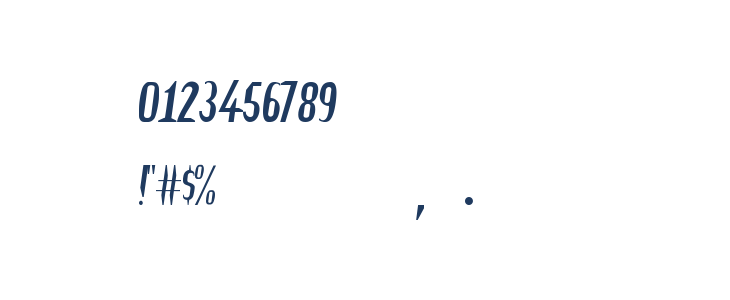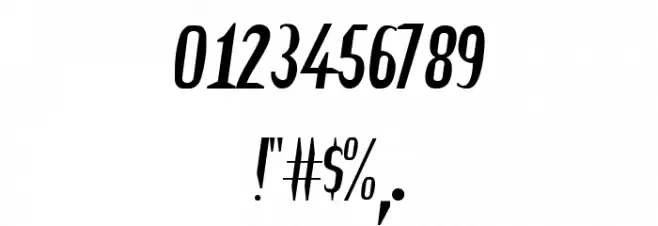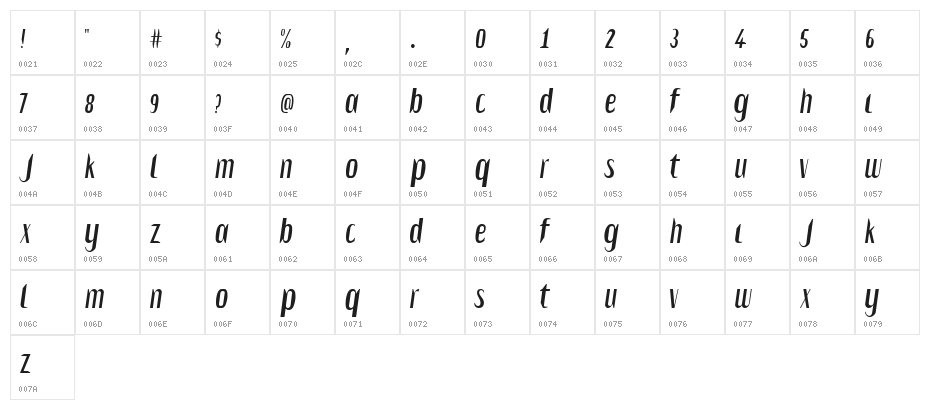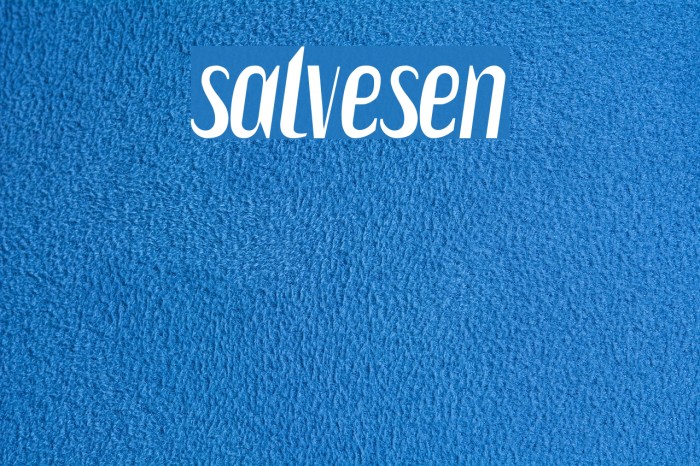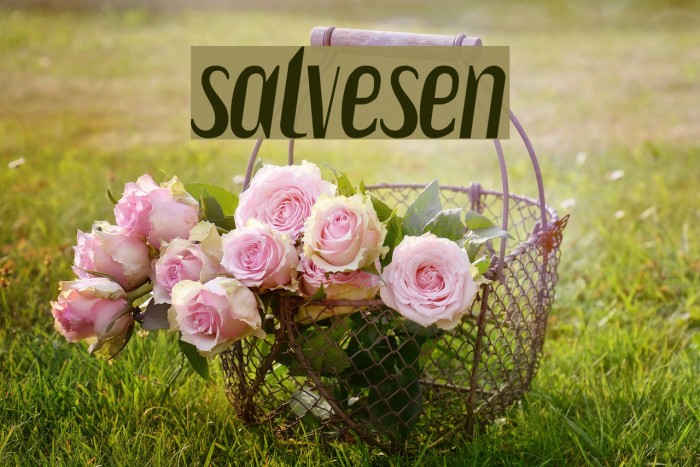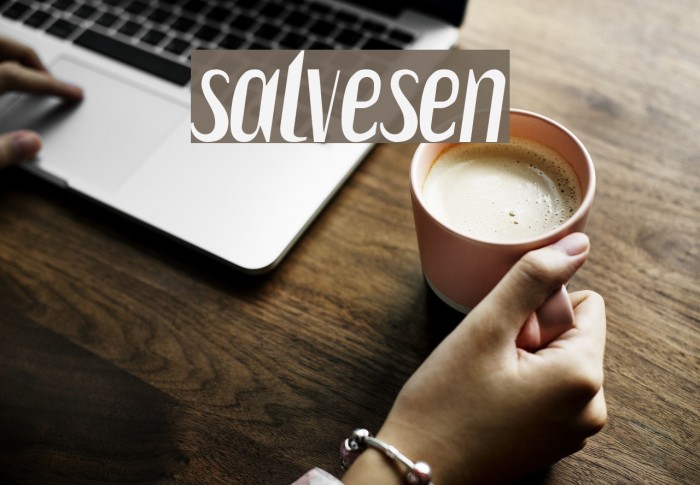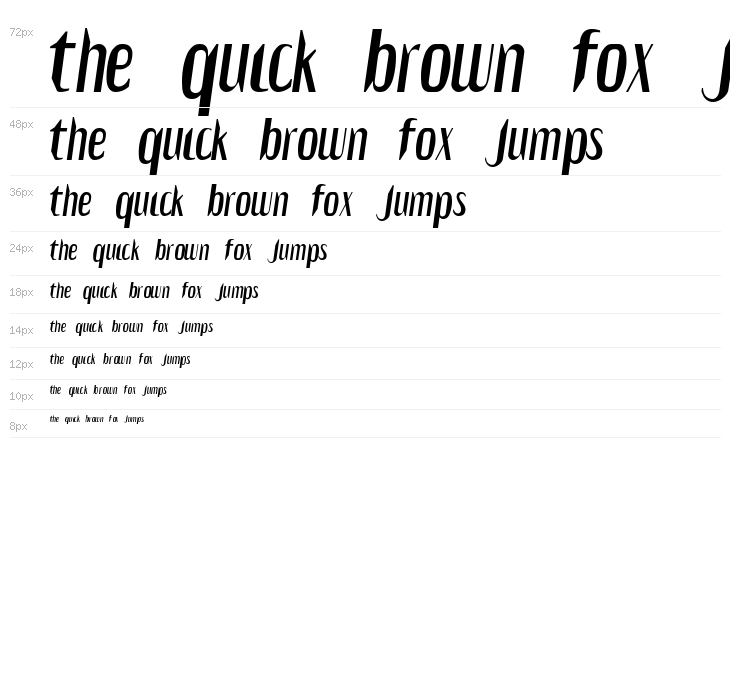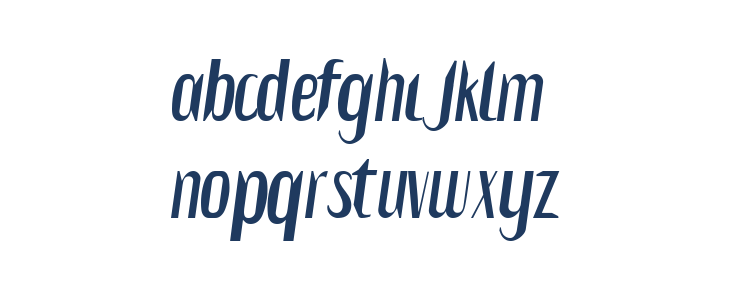
Salvesen Font
Salvesen Description
This font features a sleek and modern design with a distinct italic slant, giving it a dynamic and forward-moving appearance. The characters are elongated with a slight curvature, adding elegance and fluidity to the text. The uppercase and lowercase letters maintain a consistent style, with smooth transitions and sharp edges. The numerals are well-proportioned, complementing the overall aesthetic. Special characters are included, maintaining the same stylistic approach. The font's unique style makes it suitable for creative and contemporary projects.
| Proposed Projects | Ideal for branding, advertising, fashion magazines, and modern web design. |